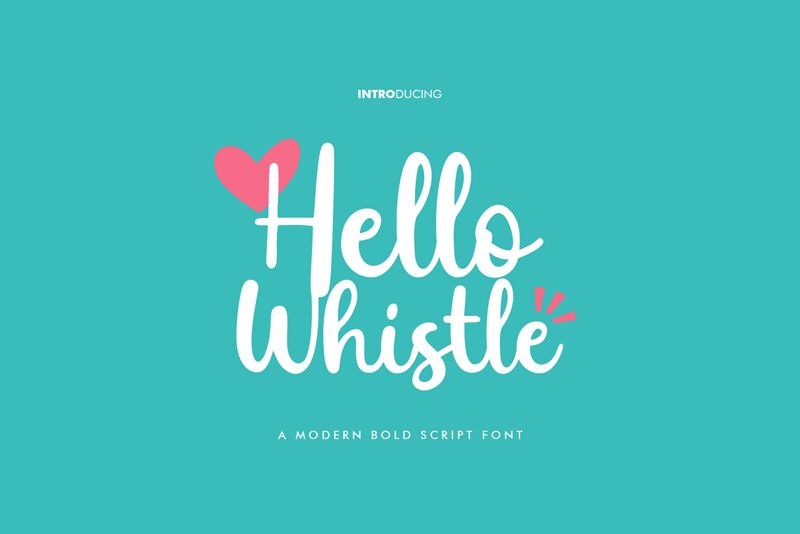
Hello Whistle
Hello Whistle is a charming handwritten font that exudes a personal touch with its fluid, organic strokes and playful character. Crafted by the talented Khurasan, this font captures the essence of spontaneous script with all the warmth of a handwritten note. Each letter boasts an individual personality, making it perfect for designs that aim to feel intimate and inviting.
The aesthetic appeal of Hello Whistle lies in its casual elegance and versatility. Its clean lines and varying weights provide visual interest without compromising readability, making it suitable for a wide range of creative projects—from heartfelt invitations to trendy branding, chic logos to custom merchandise.
Embrace the distinctive style of Hello Whistle to inject an authentic handcrafted feel into your next design endeavor. Whether you're looking for a font that's approachable yet sophisticated or one that can tell a story with every word, Hello Whistle stands ready to elevate your work with its unique blend of simplicity and charm.